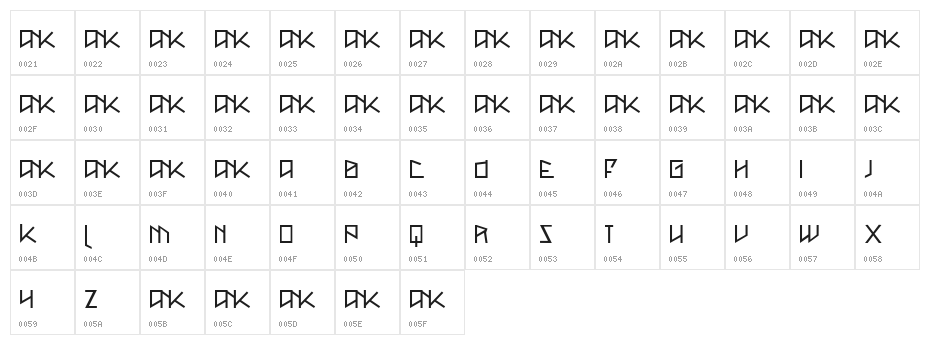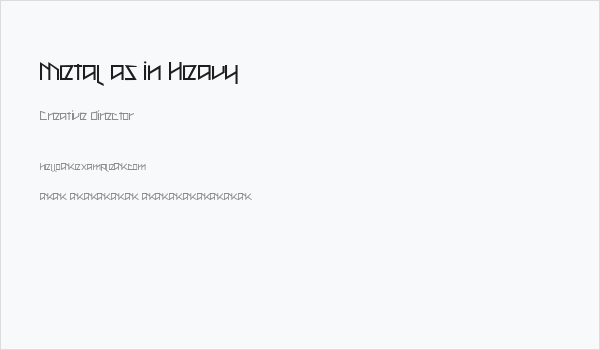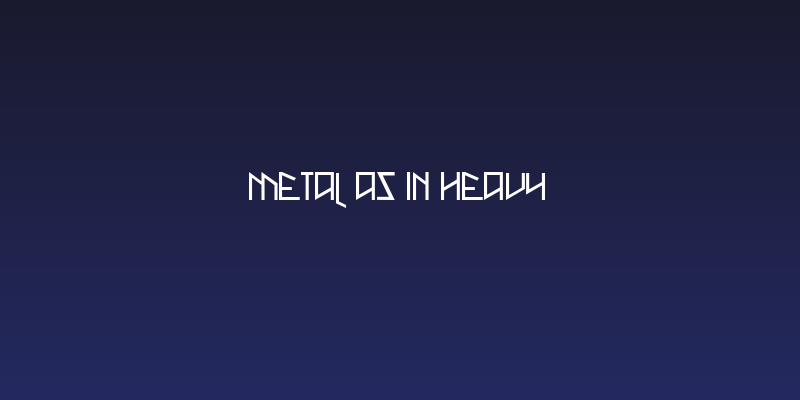
Metal as in Heavy Font
Metal as in Heavy Description
This font features a bold, angular design with sharp edges and geometric forms, reminiscent of heavy metal aesthetics. The uppercase and lowercase letters share a consistent style, emphasizing strong vertical and diagonal lines. The characters are constructed with a uniform stroke width, contributing to a cohesive and striking appearance. The font's unique style is both modern and edgy, making it ideal for projects that require a bold statement. The spacing between characters is tight, enhancing its compact and impactful look.
| Overall Style | Modern, Edgy |
| Use Case | Logos, Posters, Album Covers |
| Proposed Projects | Perfect for band logos, album covers, posters, and any design requiring a strong, edgy aesthetic. |